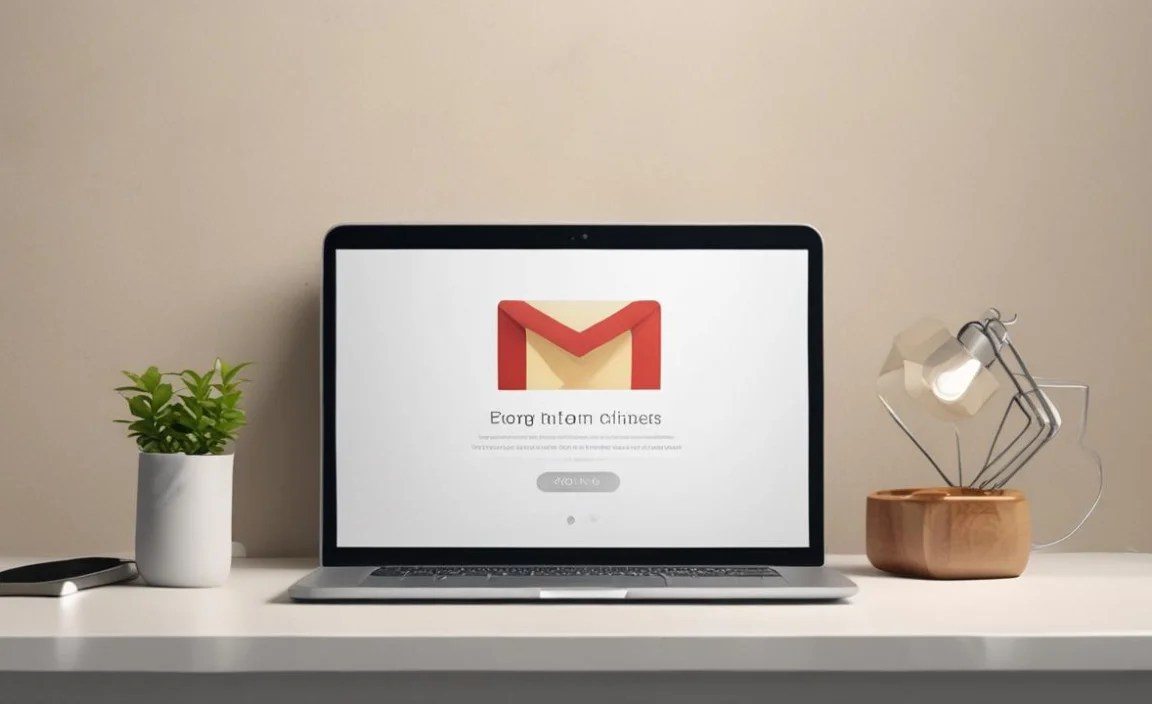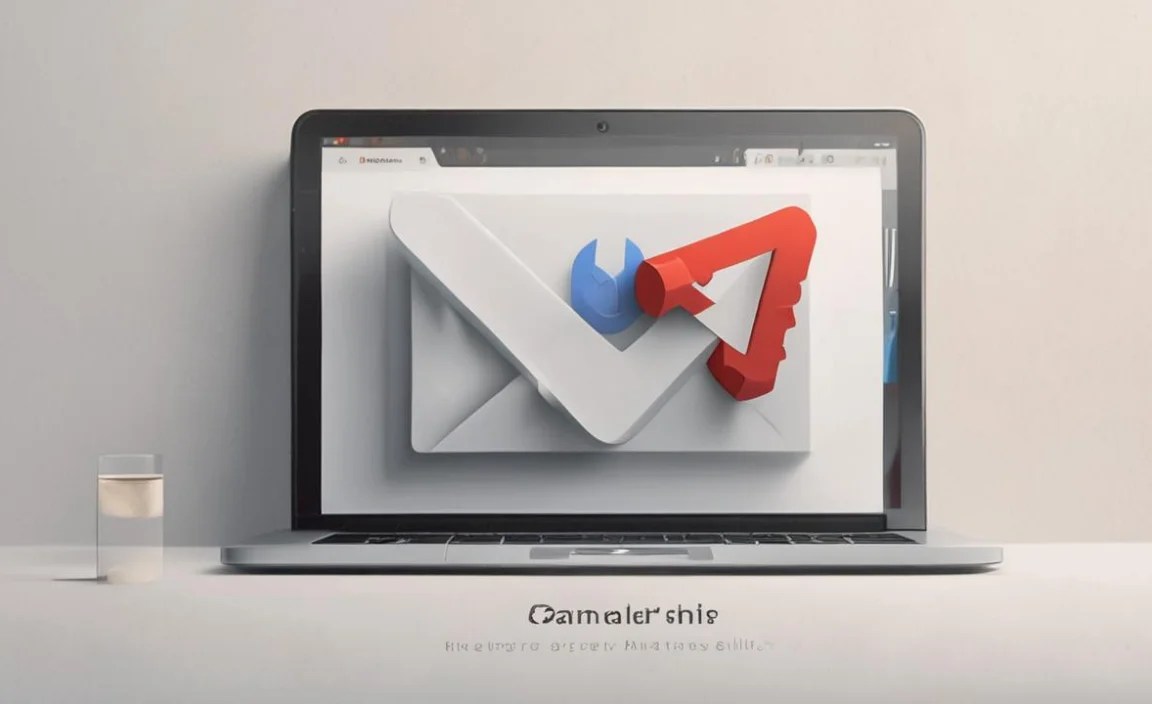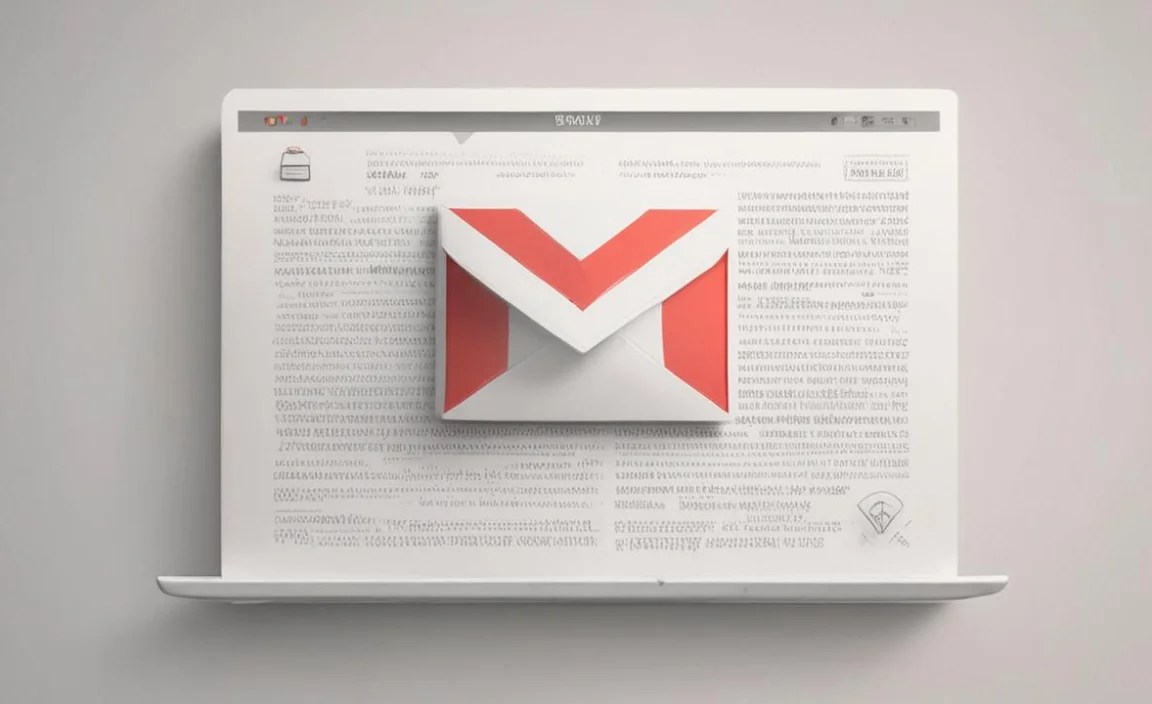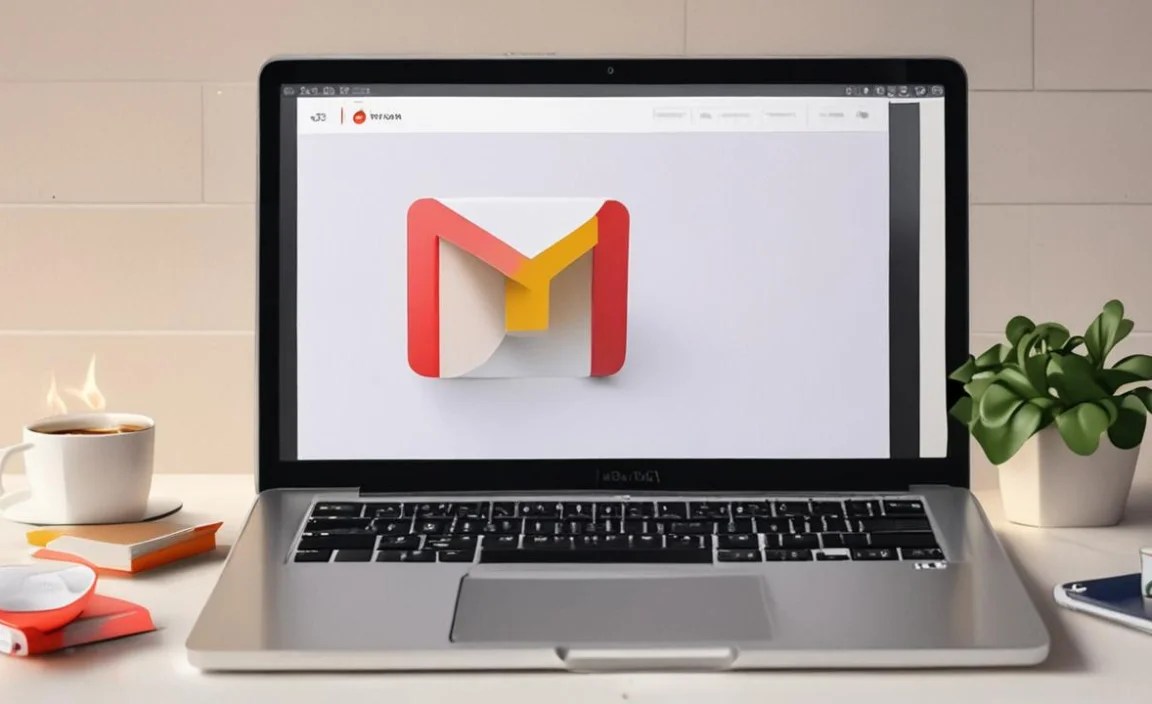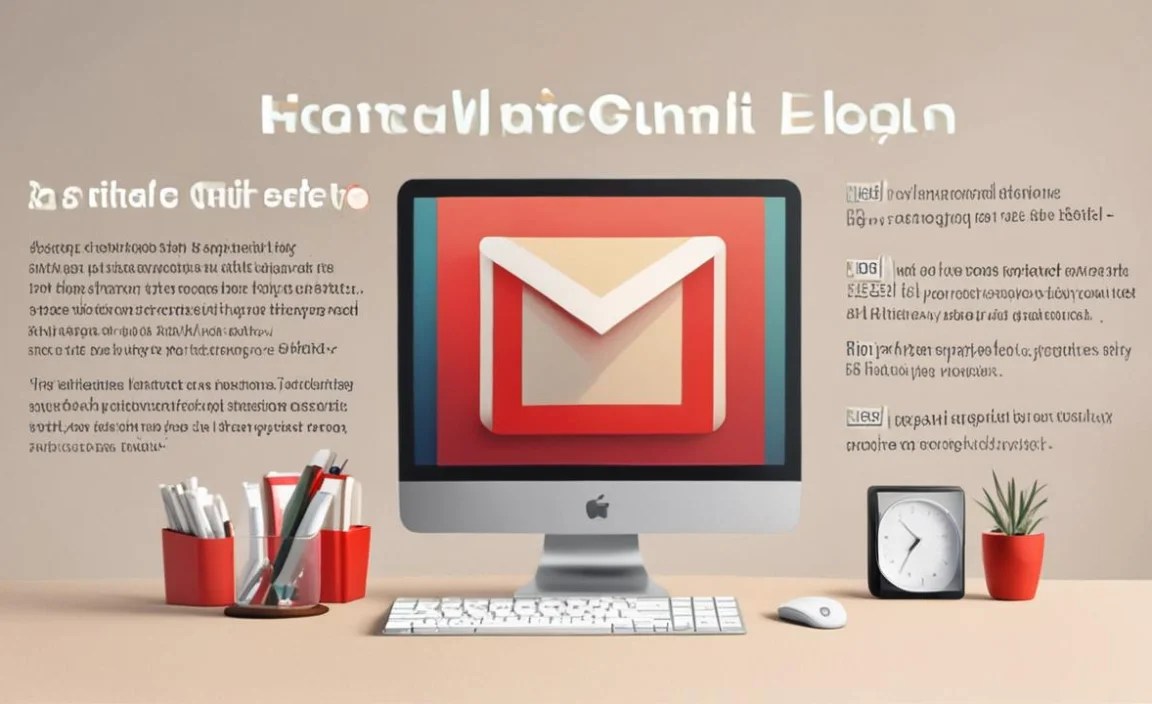
Gmail, one of the most widely used email services in the world, is known for its clean and professional interface. Fonts play a key role in creating a visually appealing and user-friendly experience.
Gmail uses specific fonts to ensure legibility and consistency across different devices and email clients. This article delves into the default font used by Gmail, its alternatives, and how you can customize fonts to suit your needs.
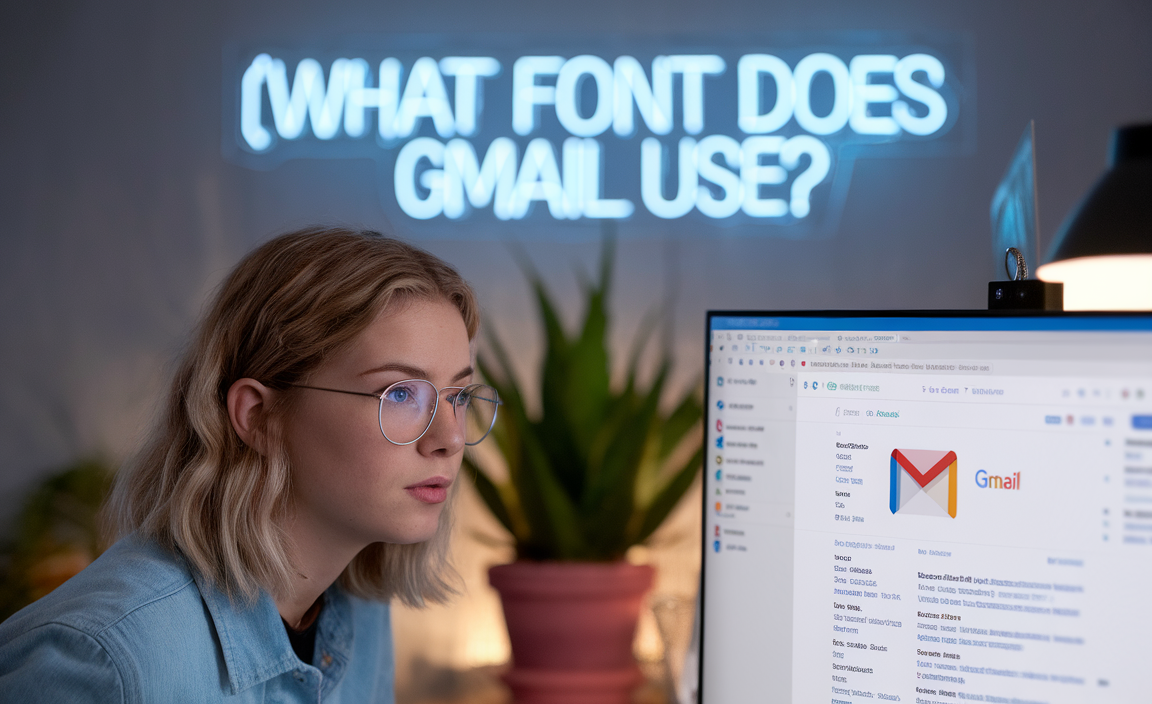
Default Font Used in Gmail
Gmail’s default font is Arial, a sans-serif typeface that is widely popular as a web-safe font. This means it renders consistently across various devices and browsers, ensuring that emails appear uniform regardless of the recipient’s system.
- Category: Sans-serif
- Features: Clean lines, high readability, and excellent compatibility
- Why Arial? Arial is a safe font choice for digital communication because it is pre-installed on most operating systems and supports a wide range of languages.
Gmail uses Arial as its fallback font when rendering emails composed in Gmail’s default text style.
Custom Fonts in Gmail
While Gmail defaults to Arial, it offers various options for customizing font styles and sizes. In the Gmail editor, you can choose from several web-safe fonts, including:
- Sans-serif fonts: Arial, Verdana, Trebuchet MS
- Serif fonts: Times New Roman, Georgia
- Monospace font: Courier New
These fonts are carefully selected to ensure readability across different email clients. Gmail does not support custom web fonts directly, but advanced users can embed custom fonts using HTML and inline CSS when designing email campaigns.
Font Sizes and Styles in Gmail
Gmail provides flexibility in font size and style for composing emails:
- Font Sizes: Gmail’s text editor includes options for small, normal, large, and huge font sizes. These sizes adjust the text for better readability and emphasis.
- Font Styles: Bold, italic, underline, and strikethrough styles are available to highlight important content.
You can change these settings in the email editor or configure them as your default style in Gmail’s settings menu.
Gmail’s Role in Email Marketing
The choice of fonts plays a significant role in email marketing. Fonts like Arial and Times New Roman are commonly used because they ensure consistency and professionalism in emails. When designing marketing emails, using Gmail’s default fonts ensures compatibility with the recipient’s email client, reducing rendering issues.
Best Fonts for Email Campaigns
Some popular fonts used in email campaigns include:
- Arial: Default in Gmail and highly legible
- Times New Roman: A classic serif font for formal communication
- Verdana: A clean sans-serif font with excellent readability
- Trebuchet MS: Modern and slightly decorative for headings
- Courier New: A monospaced font for coding or technical content
Web-Safe Fonts vs. Custom Fonts
When designing emails, the debate between web-safe fonts and custom fonts often arises. Gmail, like most email clients, prioritizes web-safe fonts to ensure that content displays correctly. Web-safe fonts are pre-installed on most devices, whereas custom fonts may not render if the recipient’s device doesn’t support them.
Popular Web-Safe Fonts
- Sans-serif fonts: Arial, Helvetica, Verdana
- Serif fonts: Times New Roman, Georgia
- Monospace fonts: Courier New
Custom Fonts in Emails
Advanced users can incorporate Google Fonts or other custom fonts into email campaigns by embedding them using HTML and CSS. However, fallback fonts like Arial or Times New Roman are crucial to ensure readability if the custom font fails to load.
How to Customize Fonts in Gmail
Changing the Default Text Style
- Open Gmail and navigate to Settings (gear icon).
- Select See All Settings.
- In the General tab, locate the Default text style section.
- Choose your preferred font, size, and style.
- Save your changes to apply the new default to all future emails.
Adding Custom Fonts in Email Campaigns
For advanced email campaigns, you can use HTML templates to add custom fonts. Tools like Google Docs or third-party email marketing platforms allow you to design emails with embedded fonts and then import them into Gmail.
Font Compatibility in Gmail
Gmail ensures that all emails are displayed consistently, regardless of the recipient’s email client. However, if the original font used in the email is unsupported, Gmail automatically switches to a fallback font. This feature enhances compatibility and prevents unreadable text.
Typography in Google Products
Gmail is part of Google’s ecosystem, and its font choices align with other Google products like Google Docs, Google Drive, and Google Calendar. These platforms often use Google Sans, a proprietary typeface developed by Google, or Roboto, a versatile web font.
Are Gmail fonts compatible with all email clients?
Yes, Gmail’s default fonts are web-safe and compatible with most email clients, ensuring consistent rendering across devices.
What is the best font for email marketing?
Popular choices for email marketing include Arial, Times New Roman, and Verdana, as they are professional, legible, and widely supported.
Does Gmail use Google Sans for emails?
No, Google Sans is used in Google’s branding and UI elements but not in Gmail’s email content. Gmail defaults to Arial for emails.